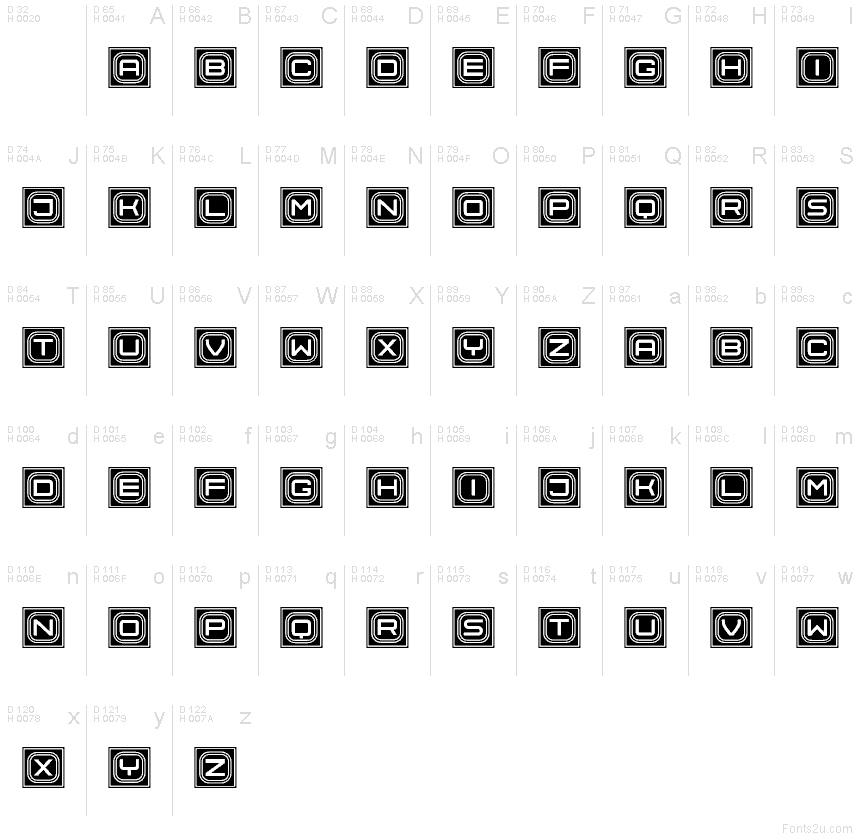
Select Condensed Regular
Select Condensed font is a display creation by Vladimir Nikolic. This expanded fancy character set features futuristic and geometric shapes that fit within a modular style. The optic effect generated from the negative space imitation is its outstanding feature which is why it’s advised for projects that need to capture instant attention.
The free decorative font invents digital aesthetics in visual identity or advertising posters, magazine covers, or packaging design. It also lends its magic to t-shirts, social media posts, mobile application user interfaces, video games, book covers, etc.